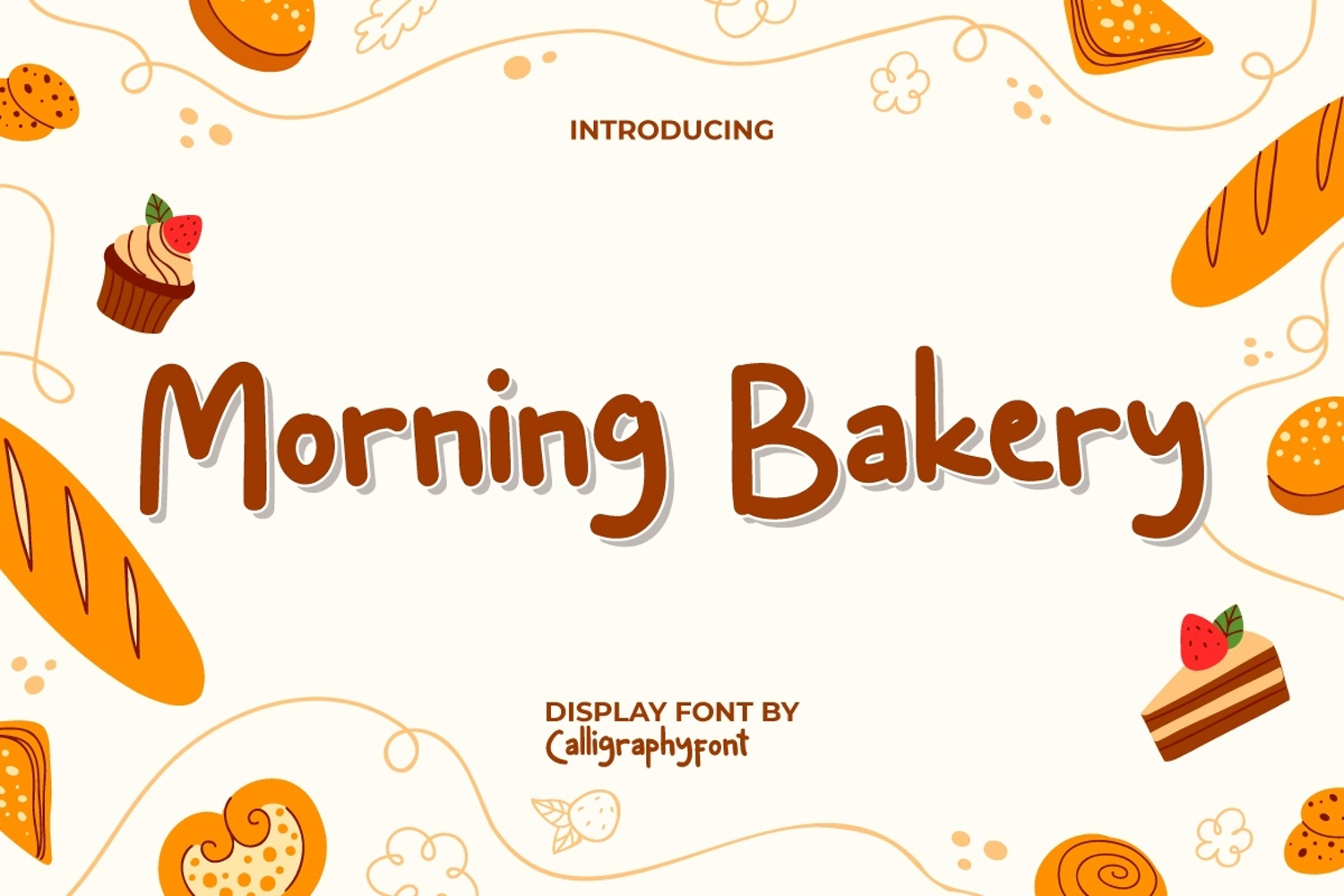
Morning Bakery Font
Morning Bakery Font is a cute sweet display font with a rounded fun monoline style. Each letter flows nicely into the next. This was inspired by cute children’s writing. Perfect for adding a touch to your projects, from banner, brochure, card designs, headers, product packaging, quotes, signage, stationery, stickers, titles, website and much more.
Morning Bakery Font is casual handmade writing that can be used as a single font or combined with other types of fonts and will still be attractive. You can use it for animation, bakery, cafeteria, clothing brand, creator content, dessert lessons, film, food franchise, graphic design, handicrafts, photography, printing, publishing, restaurant, vlogger and more.